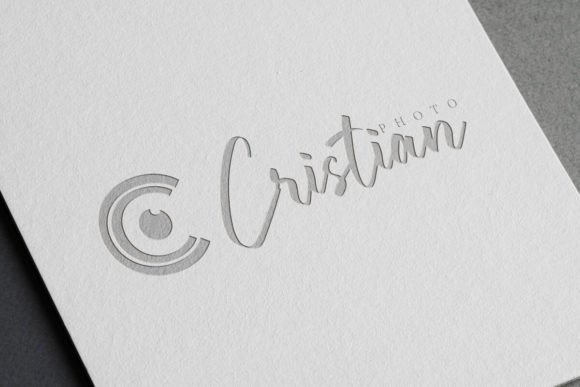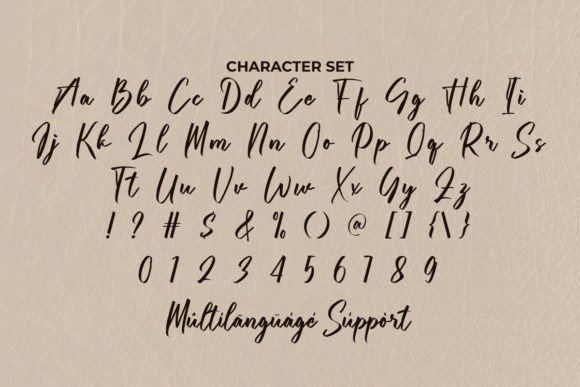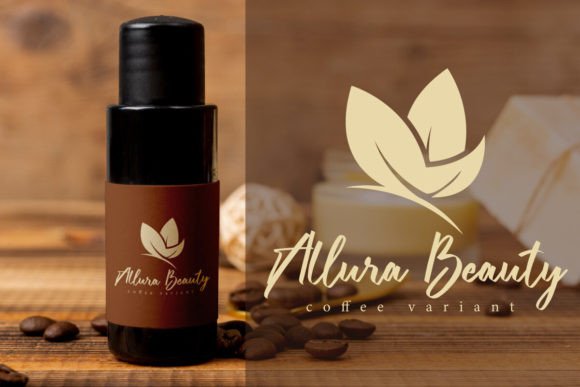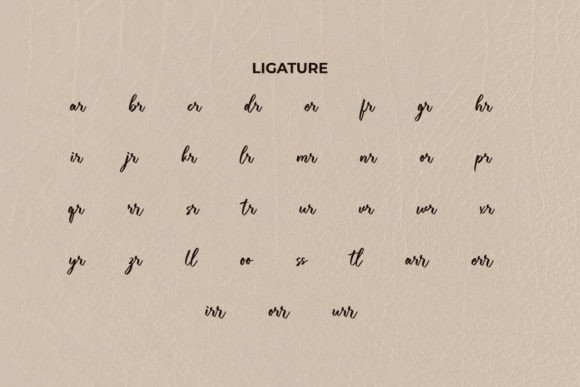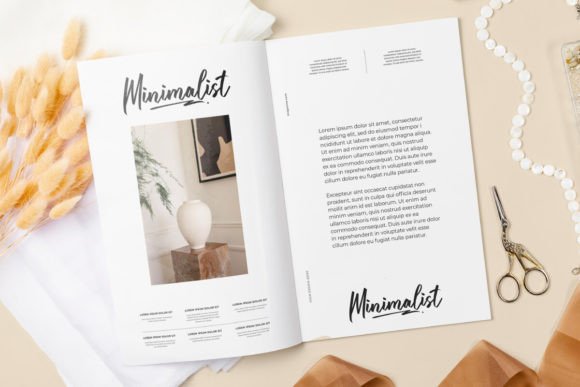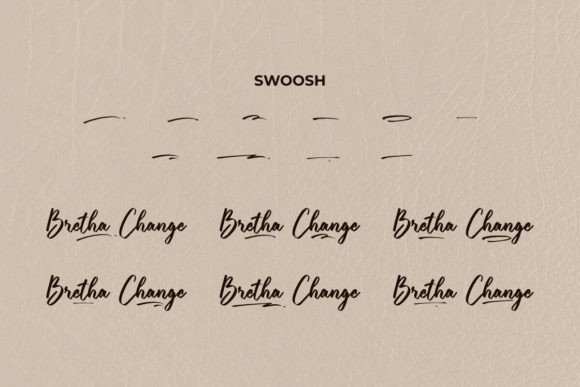
Adding a Touch of Elegance with the Bretha Change Font
Do you remember the moment when a simple, yet beautiful font choice completely transformed the look and feel of your design project? It’s a feeling that can elevate your work from good to great, and leave a lasting impression on your audience. For designers, finding the perfect font can be a daunting task, but what if I told you that there’s a font that’s sure to captivate anyone’s attention?
Meet the Bretha Change Font, a stunning brush handwriting font designed by NoahType. This elegant font is perfect for a wide range of industries, from accessories and clothing brands to publishing and photography. Its classy, sophisticated look makes it an invaluable asset for designers who want to add a touch of sophistication to their designs.
With the Bretha Change Font, you’ll be able to create visually stunning designs that stand out from the crowd. Whether you’re working on a branding project or a marketing campaign, this font is sure to make a lasting impression.
Bretha Change Font Key Features
Bretha Change Font Review
I’ve had the chance to try out Bretha Change Font, and I must say it’s an interesting tool. Here are my thoughts:
- Easy to use interface: Bretha Change Font has a simple and intuitive design that makes it easy to navigate, even for users who are not tech-savvy.
- Good font variety: The font library is quite extensive, with a wide range of styles and designs to choose from.
- Fast font switching: The font switching process is relatively quick, which is a big plus for users who need to make multiple changes.
- Limited customization options: While Bretha Change Font offers a good range of fonts, the customization options are limited, which may not be suitable for users who need more control.
- No advanced font manipulation features: Users who need to make advanced font manipulations, such as font embedding or font substitution, may find Bretha Change Font lacking.
- Some fonts may not display correctly: I’ve noticed that some fonts may not display correctly, especially when used in certain contexts.
Overall, Bretha Change Font is a decent tool that works well for simple font switching needs. However, users who require more advanced font manipulation features may need to look elsewhere.
Some tips to get the most out of Bretha Change Font include:
- Experiment with different font styles and sizes to find the perfect look for your design.
- Use Bretha Change Font to create a consistent brand identity across all your designs.
- Combine Bretha Change Font with other design elements, such as images and graphics, to create visually appealing designs.